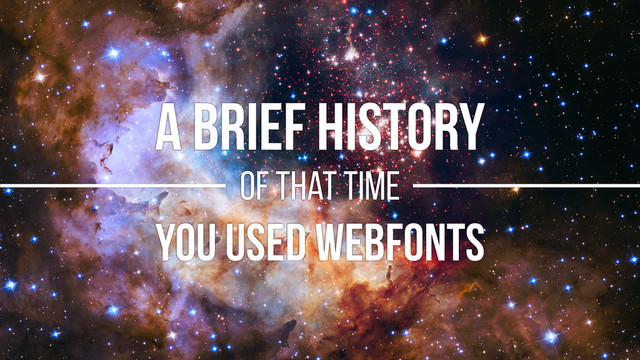
A Brief History of that Time You Used Web Fonts
A Brief History of that Time You Used Web Fonts
A talk given for SmashingConf Barcelona 2015.
1. IN THE BEGINNING 4,500,000,000 Years Ago VERDANA GEORGIA COURIER NEW
TIMES NEW ROMAN IMPACT COMIC SANS MS THERE WAS ARIAL IN 1995
2. IMG
3. CSS
4. IS 30% SMALLER THAN WOFF On average across all of
Google Fonts: https://groups.google.com/a/chromium.org/forum/#!topic/chromium-dev/j27Ou4RtvQI/discussion WOFF2
5. @font-­‐face  {    font-­‐family:  Open  Sans;    src:  url('opensans.woff2')  format('woff2'),
url('opensans.woff')  format('woff'),          url('opensans.otf')  format('opentype');   }
6. <!doctype  html>   <style>   @font-­‐face  {    font-­‐family:  Open
Sans;    src:  url('opensans.woff2')  format('woff2'),          url('opensans.woff')  format('woff');   }   </style>
7. @font-­‐face  {      font-­‐family:  Ampersand;      src:  url('ampersand.woff2')
format('woff2'),                url('ampersand.woff')  format('woff');      unicode-­‐range:  U+26;   } unicode- range
8. unicode- range 36 9+ 23 8+ 2.1+ 8+ Supported Supported
with SMART DOWNLOAD NOT SUPPORTED
9. EXACT MATCH ON Font-Family USED ON AN ELEMENT IN THE
DOCUMENT ✔ ✔ @FONT-FACE DOWNLOAD CHECKLIST
10. EXACT MATCH ON Font-Family USED ON AN ELEMENT IN THE
DOCUMENT ELEMENT HAS CONTENT ✔ ✔ @FONT-FACE DOWNLOAD CHECKLIST ✔
11. EXACT MATCH ON Font-Family USED ON AN ELEMENT IN THE
DOCUMENT ELEMENT HAS CONTENT IS WITHIN UNICODE-RANGE ✔ ✔ @FONT-FACE DOWNLOAD CHECKLIST ✔ ✔
12. @font-­‐face  {      font-­‐family:  My  Web  Font;
font-­‐weight:  400;      font-­‐style:  normal;   } p  {      font-­‐family:  My  Web  Font;      font-­‐weight:  400;      font-­‐style:  normal;   } ✔
13. @font-­‐face  {      font-­‐family:  My  Web  Font;
font-­‐weight:  600;   } p  {      font-­‐family:  My  Web  Font;      font-­‐weight:  100;   } ✘
14. MisMatch weight 600 Available, 100 assigned, FORCED BOLD p  {
font-­‐family:  My  Web  Font;      font-­‐weight:  100;   } @font-­‐face  {      font-­‐family:  My  Web  Font;      font-­‐weight:  600;   } ✘ ✘ ✔ ✔
15. MISMATCH STYLE ITALIC AVAILABLE, NORMAL ASSIGNED, FORCED ITALIC p  {
font-­‐family:  My  Web  Font;      font-­‐style:  normal;   } @font-­‐face  {      font-­‐family:  My  Web  Font;      font-­‐style:  italic;   } ✘ ✘ ✔ ✔
16. 100  200  300  400  500  600  700  800  900 FONT-WEIGHT
<p> ‐ ‐ Normal/Roman Bold @font-­‐face ‑
17. @font-­‐face  {      font-­‐family:  My  Web  Font;
font-­‐weight:  500;   } p  {      font-­‐family:  My  Web  Font;      font-­‐weight:  600;   } ✘
18. FAUX BOLD p  {      font-­‐family:  My  Web  Font;
font-­‐weight:  600;   } @font-­‐face  {      font-­‐family:  My  Web  Font;      font-­‐weight:  500;   }
19. FAUX ITALIC p  {      font-­‐family:  My  Web  Font;
font-­‐style:  italic;   } @font-­‐face  {      font-­‐family:  My  Web  Font;      font-­‐style:  normal;   }
20. <style>   @font-­‐face  {      font-­‐weight:  400;
font-­‐style:  normal;   }   </style>   <p>      Roman  Text      <strong>Bold  Text</strong>      <em>Italic  Text</em>   </p>
21. <i>
22. People will visit a Web site less often if it
is slower than a close competitor by more than 250 milliseconds.” http://www.nytimes.com/2012/03/01/technology/impatient-web-users-flee-slow-loading-sites.html “
23. <style>   h1  {  font-­‐family:  serif;  }   .loaded  h1
{  font-­‐family:  My  Web  Font;  }   </style>   <link  href="fonts.css"   onload="document.body.className+='   loaded';"  rel="stylesheet">   A N TI-PA TTER N
24. @font-­‐face  {      font-­‐family:  My  Web  Font;
src:  url('data:application/x-­‐font-­‐ woff;charset=utf-­‐8;base64,...')  format('woff');   }   @font-­‐face  {      font-­‐family:  My  Web  Font;      src:  url('data:application/x-­‐font-­‐ woff;charset=utf-­‐8;base64,...')  format('woff');      font-­‐weight:  700;   } A N TI-PA TTER N
25. READ AS x2261 ≡ IDENTICAL TO x2605 ★ BLACK STAR
or STAR x2665 ♥ HEART SUIT ACCESSIBILITY A N TI-PA TTER N
26. @font-­‐face  {      font-­‐family:  Open  Sans;      /*
full  FOUT  */      font-­‐display:  swap;   }
27. @font-­‐face  {      font-­‐family:  Open  Sans;      /*
100ms  maximum  FOIT  */      /*  Do  not  repaint  after  3s  */      font-­‐display:  fallback;   }
28. @font-­‐face  {      font-­‐family:  Open  Sans;      /*
100ms  maximum  FOIT  */      /*  never  FOUT  */      /*  if  not  in  cache,  use  fallback  */      font-­‐display:  optional;   }
29. FONTFACEONLOAD github.com/zachleat/fontfaceonload USES THE CSS FONT LOADING API WHEN AVAILABLE.
FONTFACEOBSERVER github.com/bramstein/fontfaceobserver/ INCLUDES A NICE PROMISES POLYFILL
30. var  doc  =  document,          docEl  =
doc.documentElement;   doc.fonts.load("1em  Raleway")    .then(function()  {          //  The  font  has  loaded.      docEl.className  +=  "  raleway-­‐loaded";    });
31. body  {      font-­‐family:  sans-­‐serif;   }   .raleway-­‐loaded
body  {      font-­‐family:  Raleway,  sans-­‐serif;   }
32. Promise.all([      document.fonts.load("400  1em  Raleway"),      document.fonts.load("700  1em
Raleway")   ]).then(function  ()  {      docEl.className  +=  "  raleway-­‐loaded";   }); ‑ document.fonts.load("1em  Raleway").then(function()  {      docEl.className  +=  "  raleway-­‐loaded";   }); BECOMES